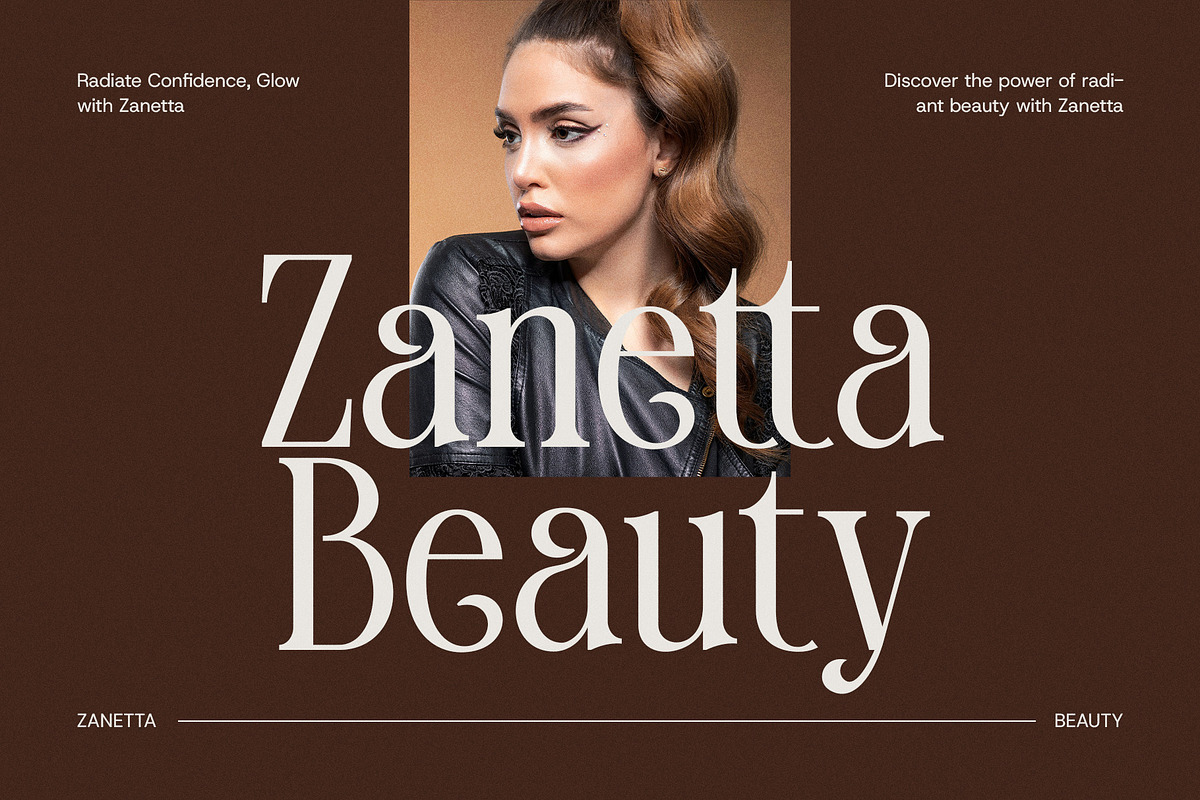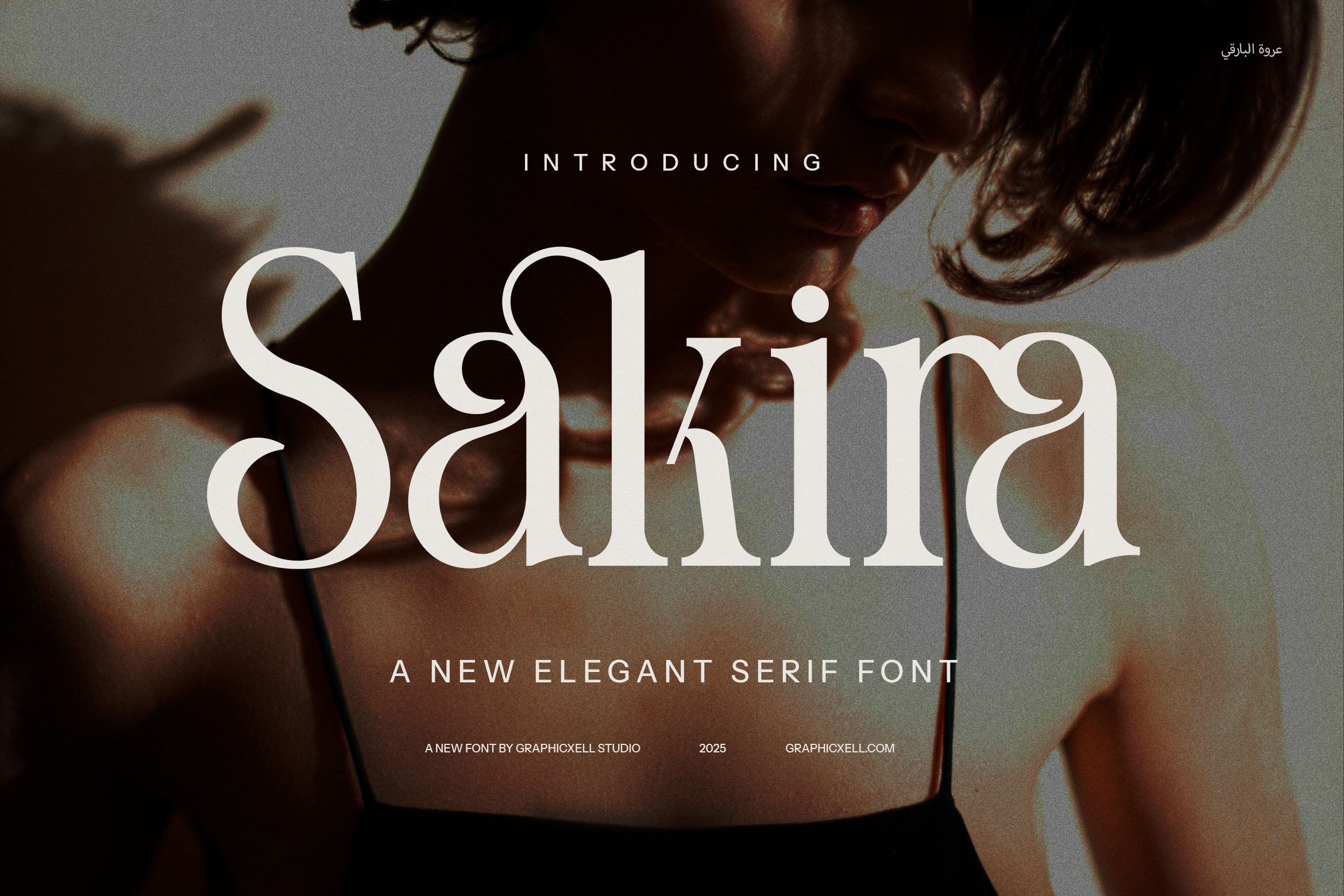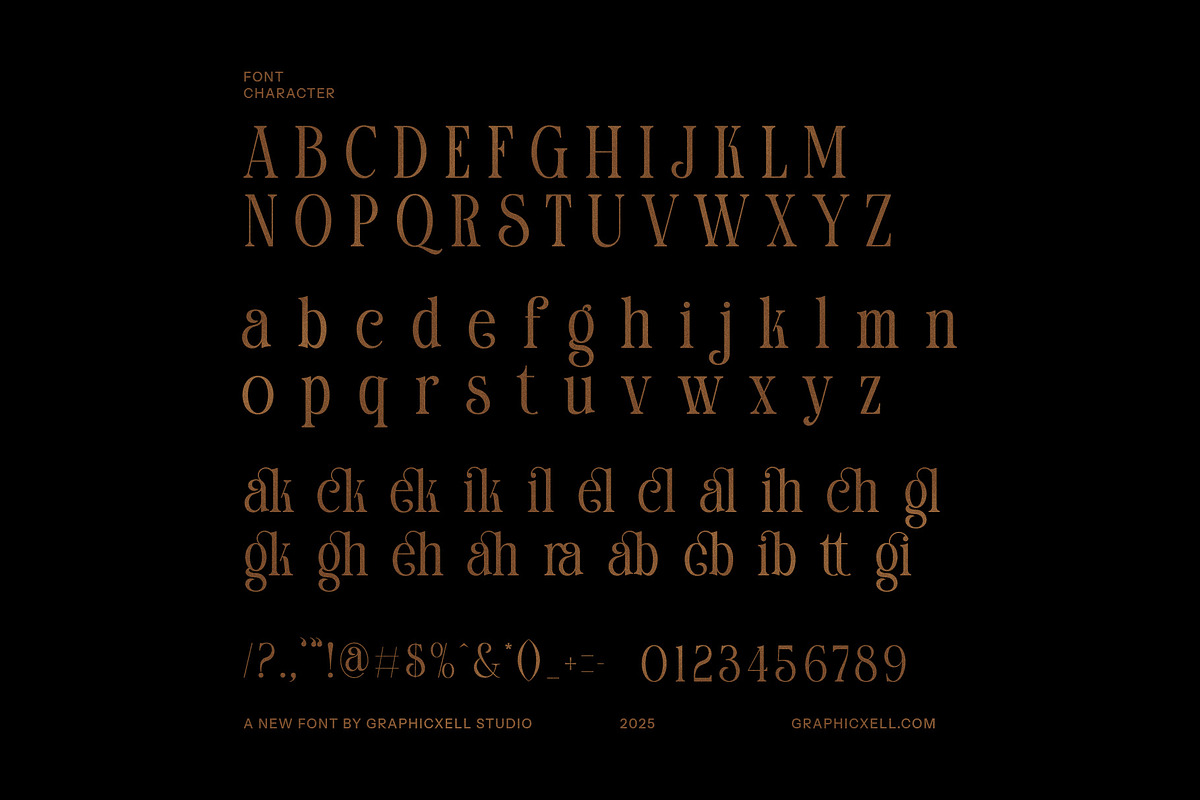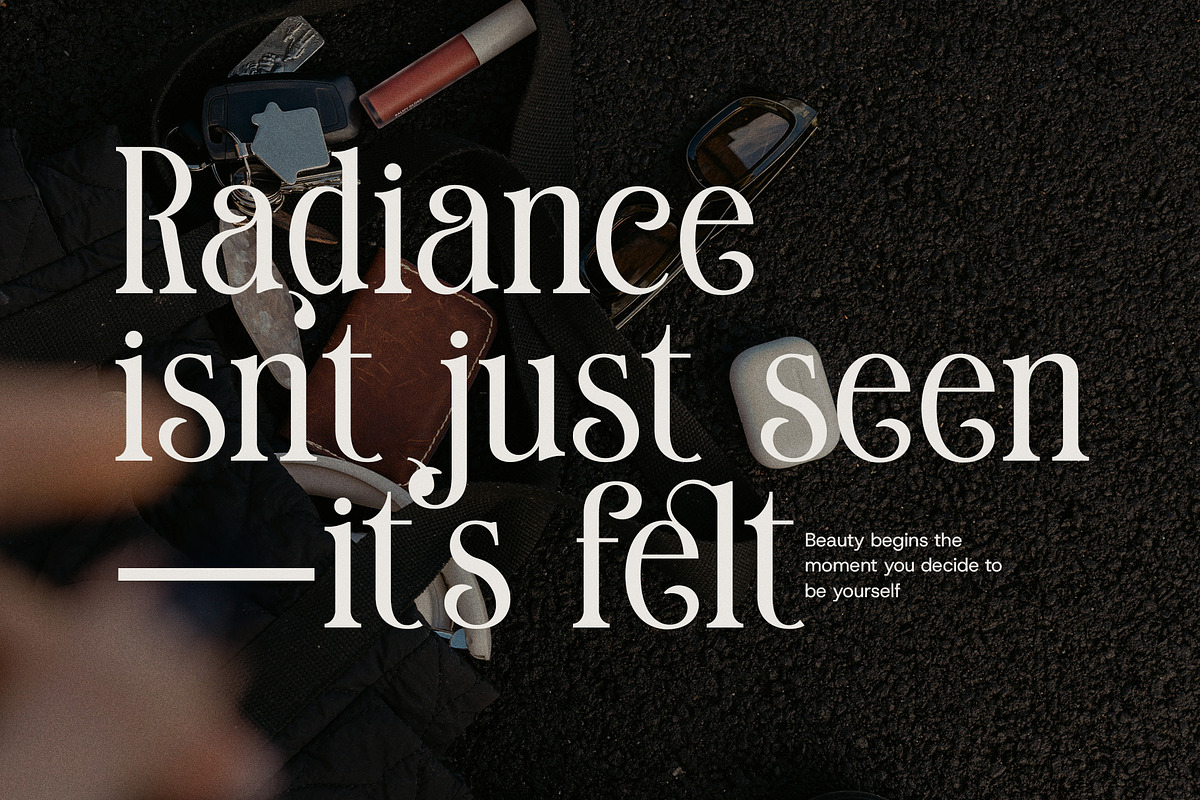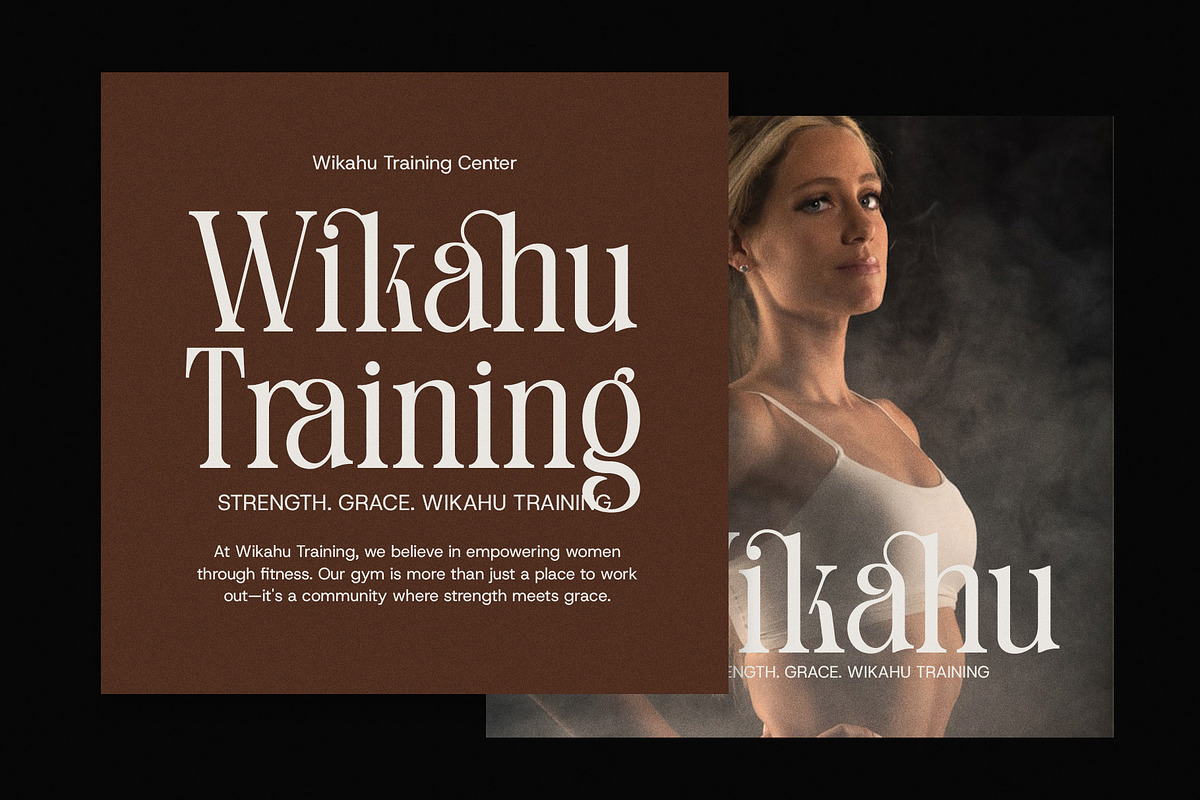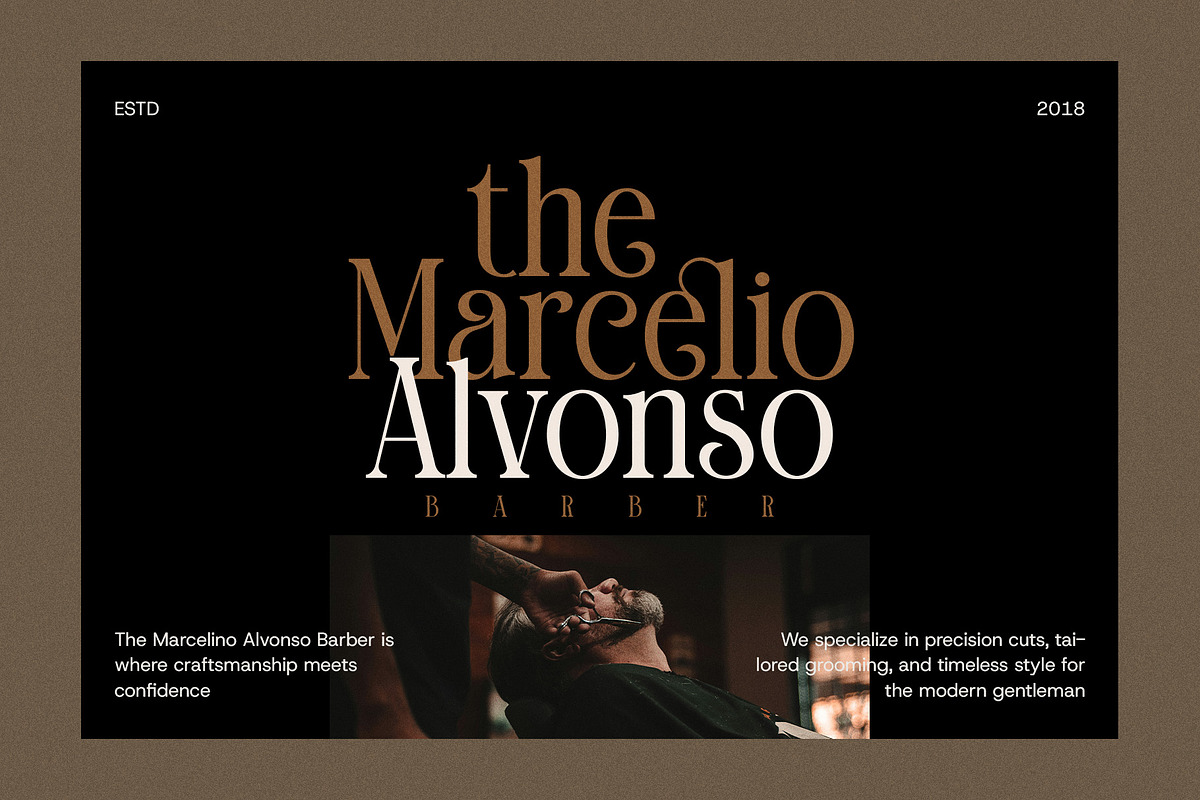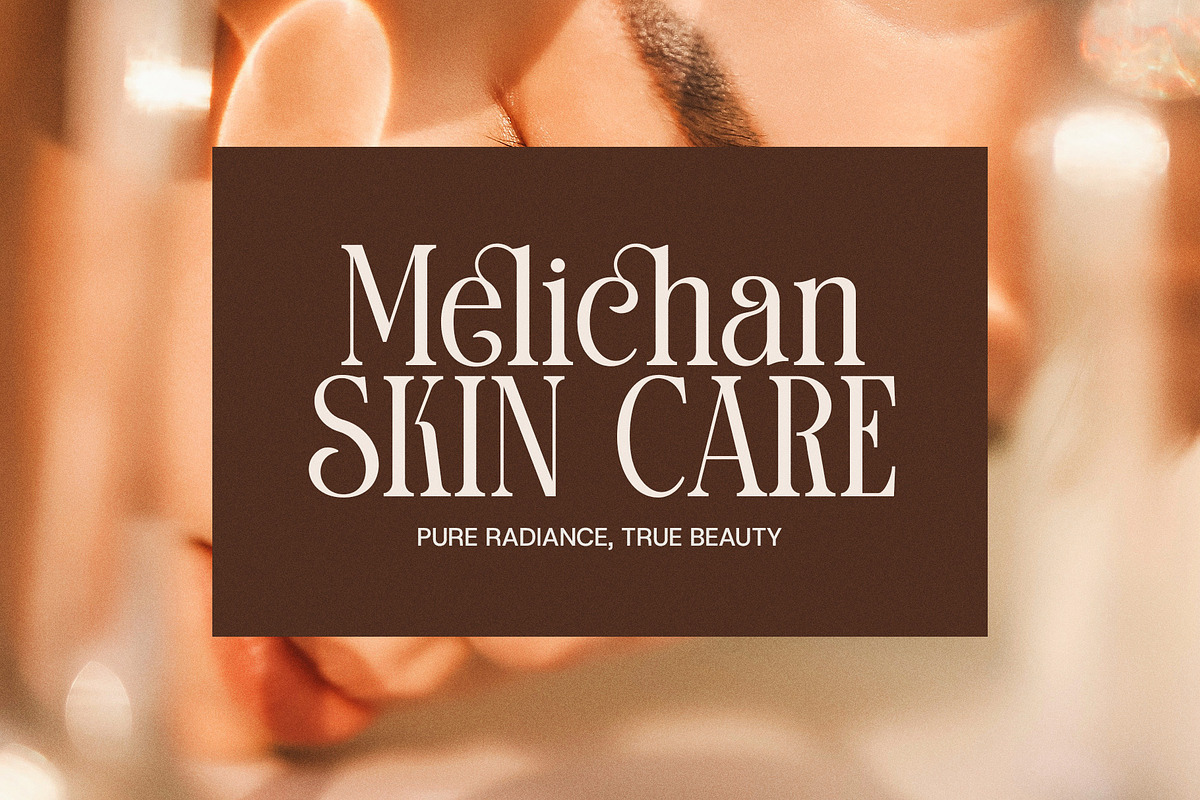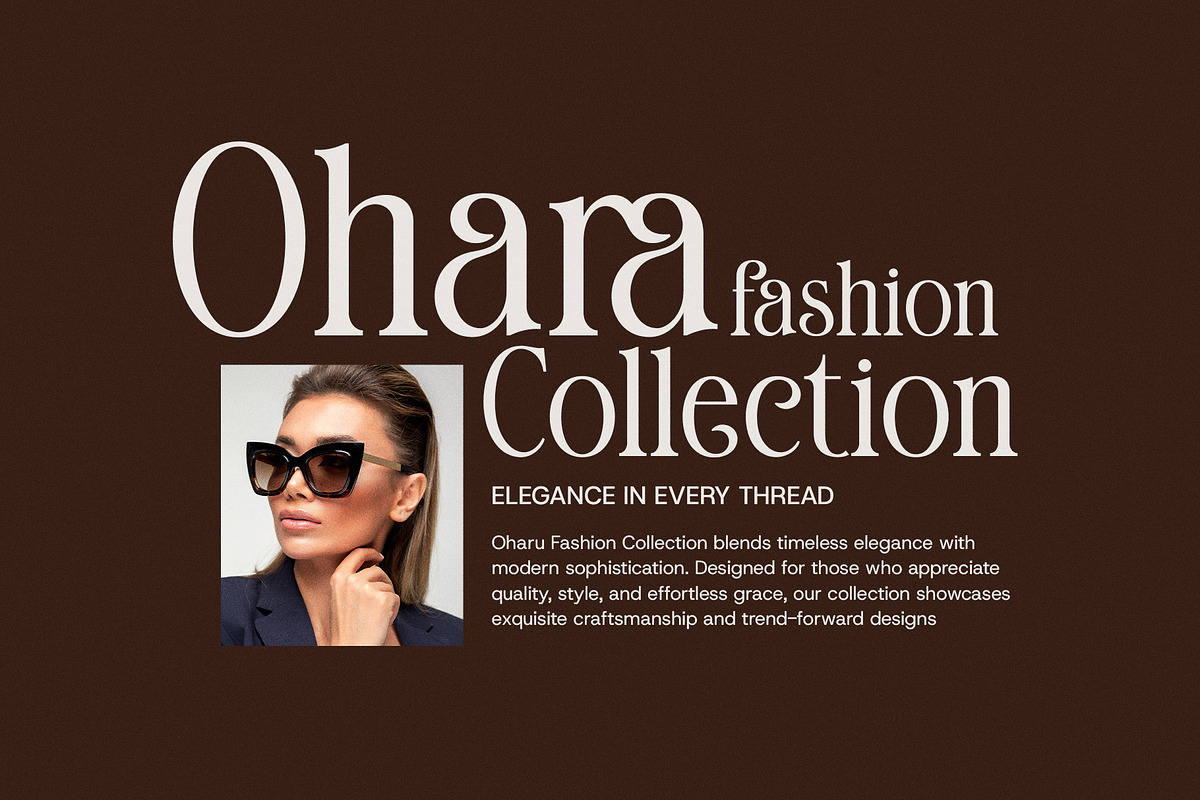
Sakira Elegant Serif Font Typeface
Introducing Sakira Elegant Serif Font Typeface – a beautifully crafted modern serif font that exudes sophistication and grace. With its unique and elegant design, Sakira is the perfect choice for high-end projects that demand a touch of luxury. This typeface combines the best of contemporary style with timeless elegance, making it ideal for creating refined designs with a sense of exclusivity.
Sakira’s standout feature is its elegantly functional ligatures, which add an extra layer of harmony and refinement to each letterform. These carefully designed ligatures not only enhance readability but also create a seamless flow between characters, giving your text a sophisticated and polished look. Whether you're designing a logo, crafting a luxury brand identity, or laying out an elegant magazine, Sakira elevates the visual impact of your work.
Perfectly suited for women’s luxury brands, fashion lines, and upscale products, Sakira carries a sense of class and exclusivity. Its refined character shapes and graceful details make it a fitting choice for branding, websites, advertisements, and product packaging in high-end industries. Whether you're creating promotional materials for boutiques, fine dining establishments, or luxury goods, Sakira ensures your designs stand out with style and elegance.
The versatility of Sakira extends across various design applications, from chic logos to visually captivating websites and magazine spreads. Its elegant curves and clean lines provide a strong yet feminine presence, making it a go-to choice for upscale fashion, beauty, and lifestyle brands.
Elevate your design projects with the Sakira Elegant Serif Font Typeface, and let its timeless elegance and modern sophistication speak volumes about your brand's luxury and prestige. Perfect for projects where beauty, class, and functionality come together seamlessly.